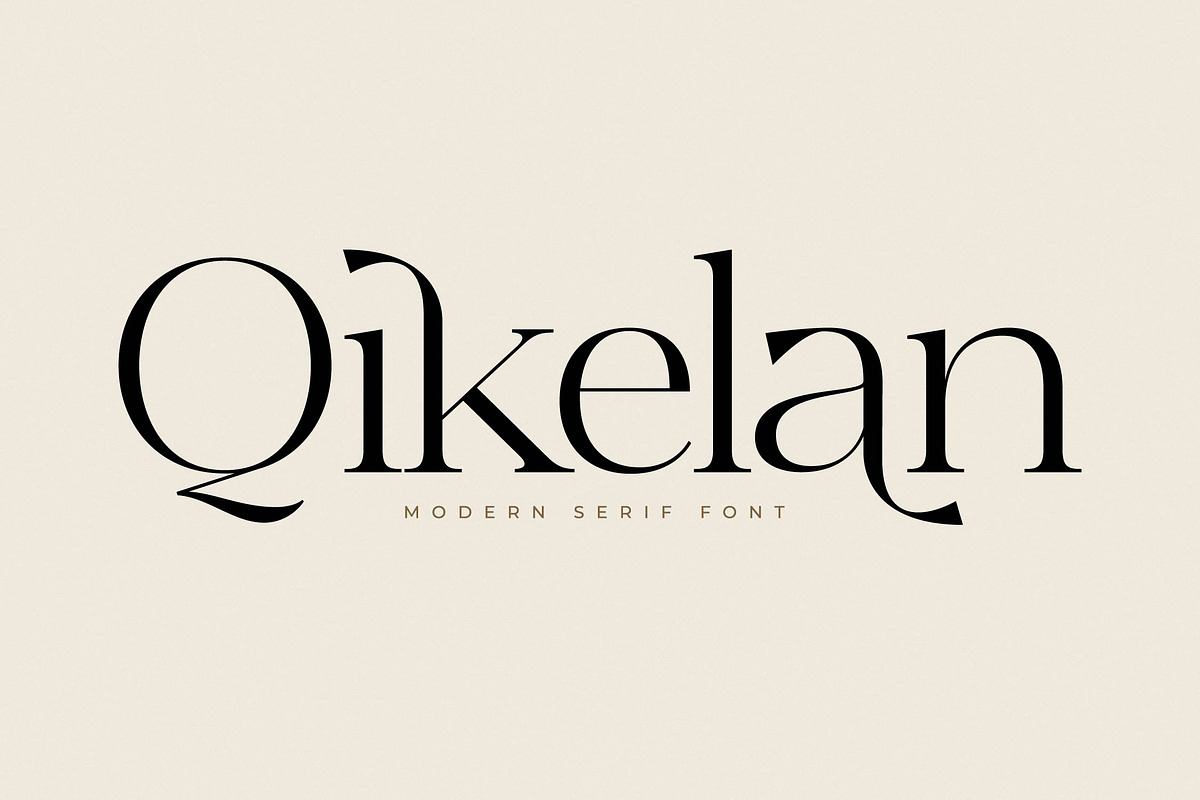
Qikelan Modern Serif Font Free Download
Refined, stylish, and effortlessly modern, Qikelan Modern Serif Font Free Download is a sophisticated typeface that blends classic serif elegance with a contemporary twist. Perfect for branding, editorial layouts, wedding invitations, fashion lookbooks, and upscale packaging, Qikelan adds a touch of luxury and professionalism to any design.
With high contrast strokes, graceful curves, and distinctive character shapes, Qikelan offers excellent readability while making a bold visual statement. It’s ideal for designers looking to elevate their typography with a font that feels both timeless and fresh.